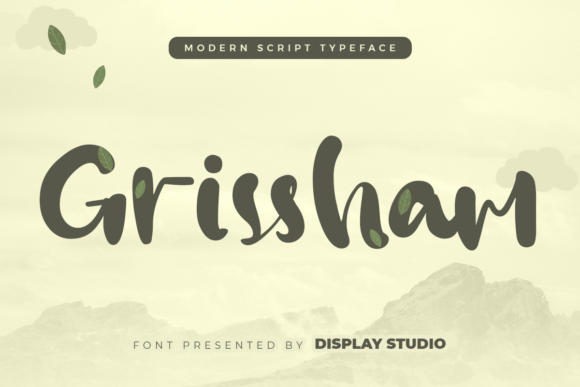
Welcome to the world of Grissham Font, a script typeface that's brimming with modern elegance and sophistication. Designed by DisplayStudio_, this font family is a striking addition to any designer's toolkit, perfect for crafting brand logos, invitations, greeting cards, and more.
Step into a realm of creative possibilities with Grissham Font, where your words will dance with grace and allure. This font is no ordinary collection of letters; it's an orchestra of meticulously crafted glyphs, harmoniously arranged to create a symphony of visual delight. With its captivating curves and elegant lines, Grissham Font will elevate your designs to new heights of beauty and distinction.
Express your creativity like never before with Grissham Font's expansive character set, supporting multiple languages and a myriad of styles. Unleash your imagination and let your designs shine in all their glory, captivating your audience with a timeless charm that transcends cultural boundaries.
Grissham Font is meticulously designed to bring your creative visions to life, whether you're a seasoned designer or just starting your journey into the world of typography. Its intuitive nature makes it easy to use, allowing you to focus on crafting designs that resonate with your audience.
Don't settle for ordinary fonts that blend into the background. Embrace the power of Grissham Font and watch your designs come alive with a personality that demands attention. Let your words dance on the page, leaving an unforgettable impression that speaks volumes about your brand's identity.